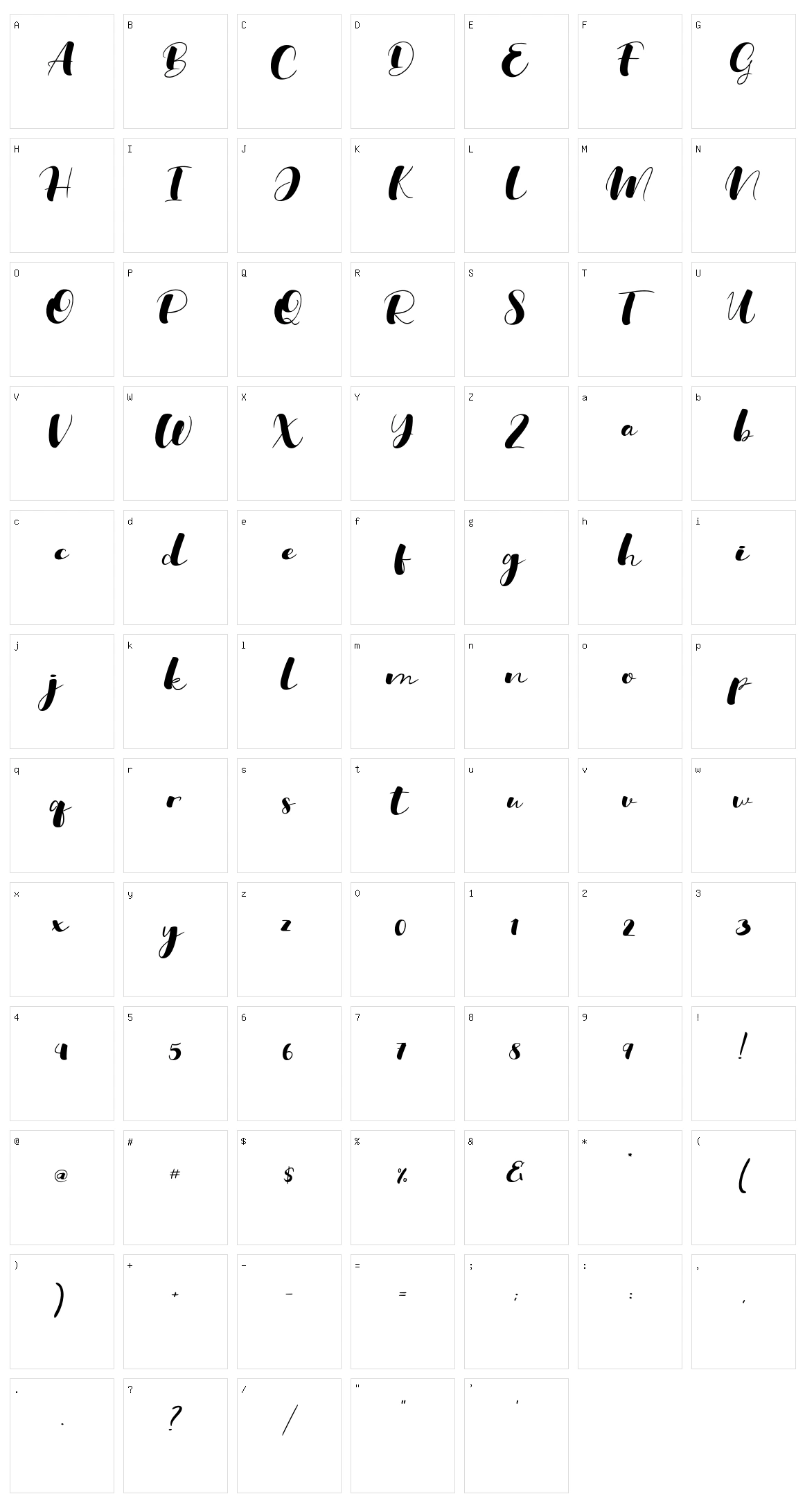
The free font Ohio is carefully designed by Khurasan, showcasing a thoughtful balance of creativity and usability and falls under the Script font style. When you download the ZIP file, it contains only 568.8 KB of font files, making it lightweight and quick to download. Please review the license details below to understand permitted usage and distribution rights. If license information is not available, we recommend using this font for personal projects only or contacting the author directly for commercial usage permissions.